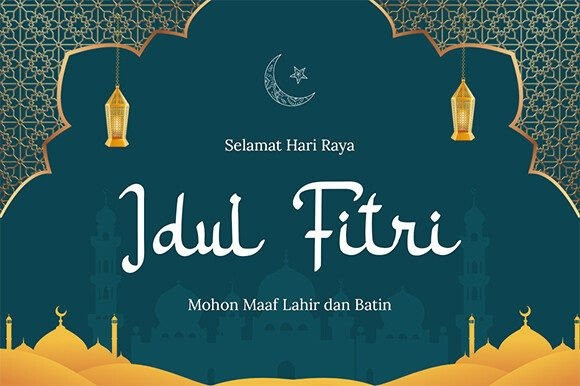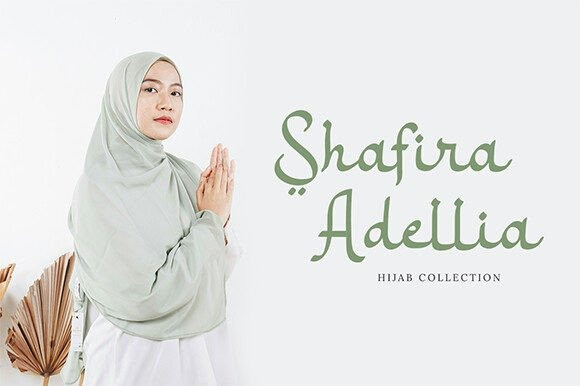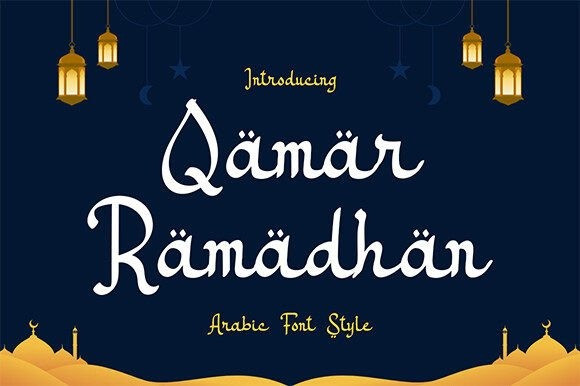
Qamar Ramadhan Font
Qamar Ramadhan Font embodies the essence of Arabic calligraphy with a touch of Islamic artistry, perfectly capturing the spirit of Ramadan. Inspired by the graceful curves and intricate details of Arabic script, Qamar Ramadhan font brings to life the beauty and elegance of Islamic culture.